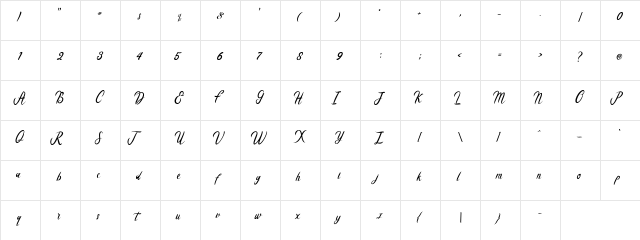
Cataleya Regular
Design Context for Cataleya Typeface
Cataleya is a composed and adaptable typeface that performs quietly and consistently across a wide range of design contexts.
Pro Tip: Pair Cataleya with a font of contrasting weight or personality to build a more expressive typographic hierarchy.